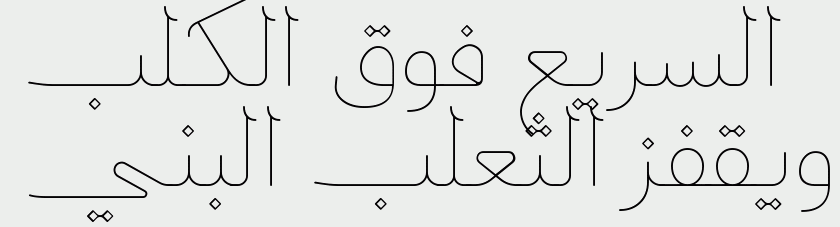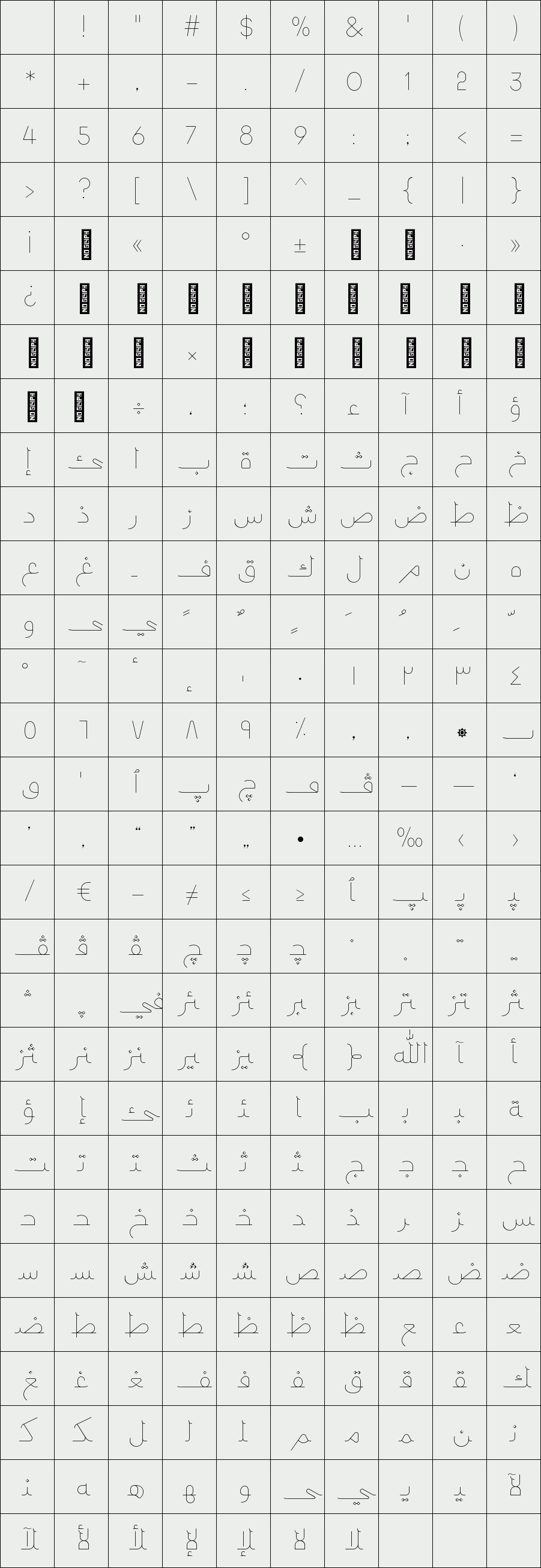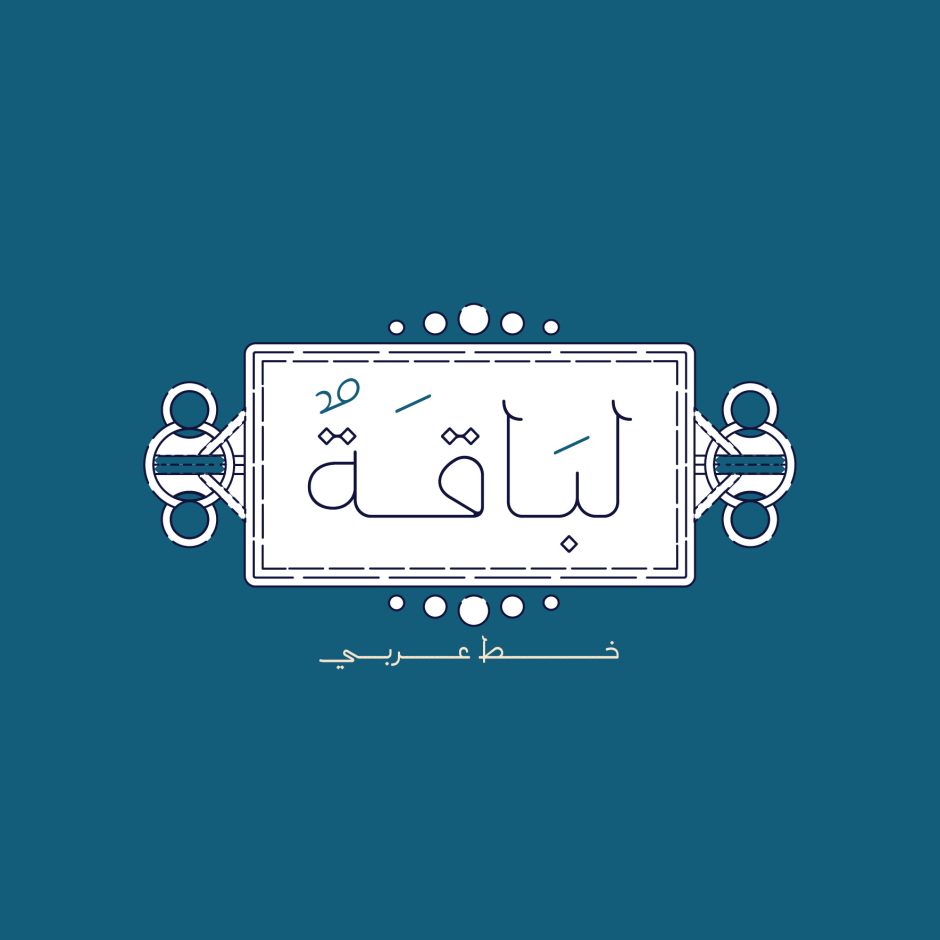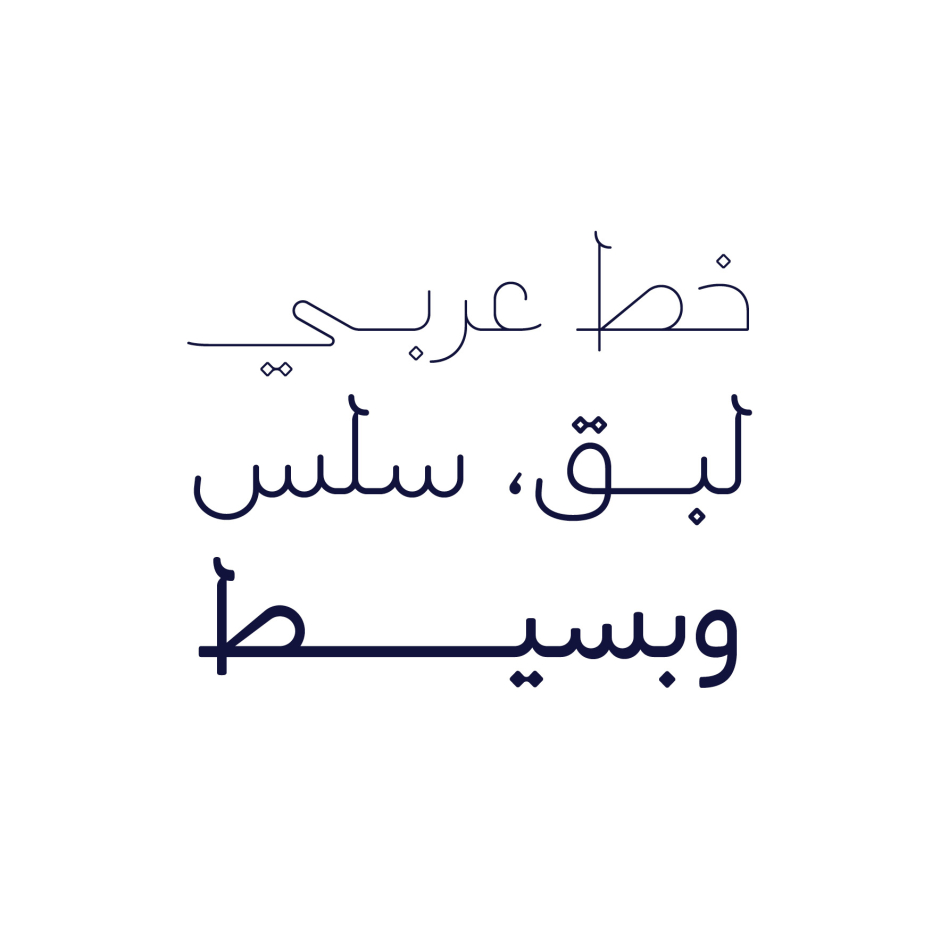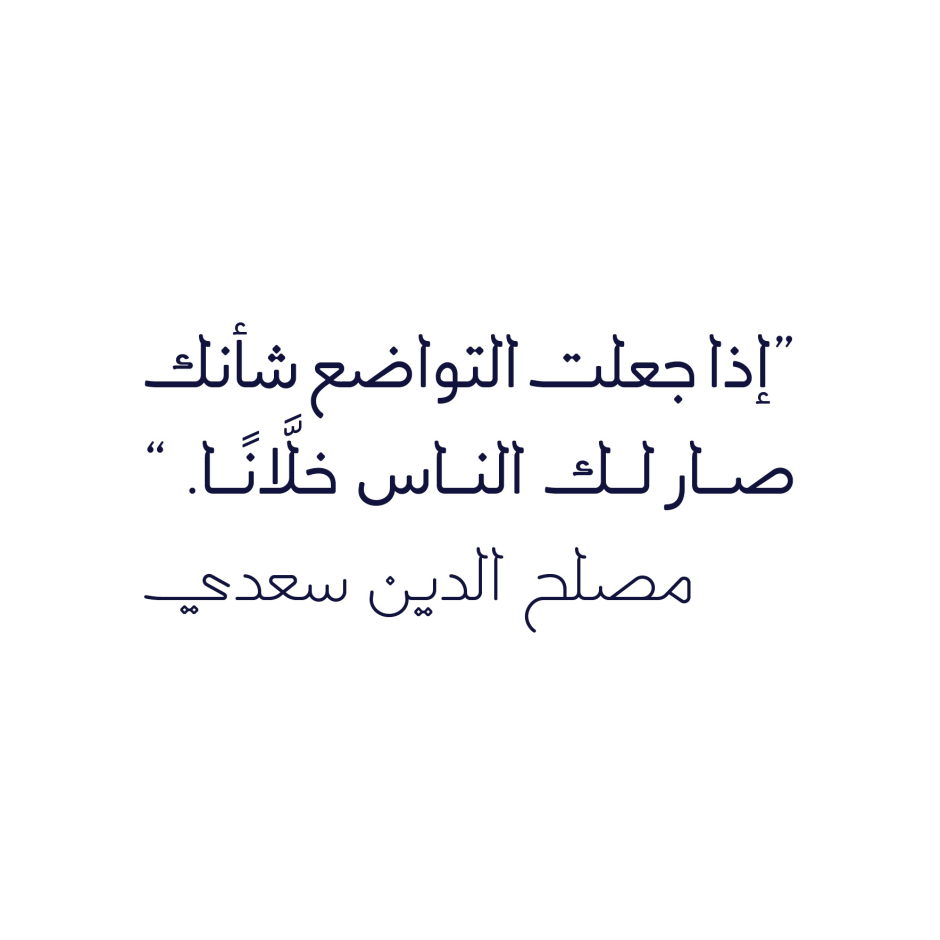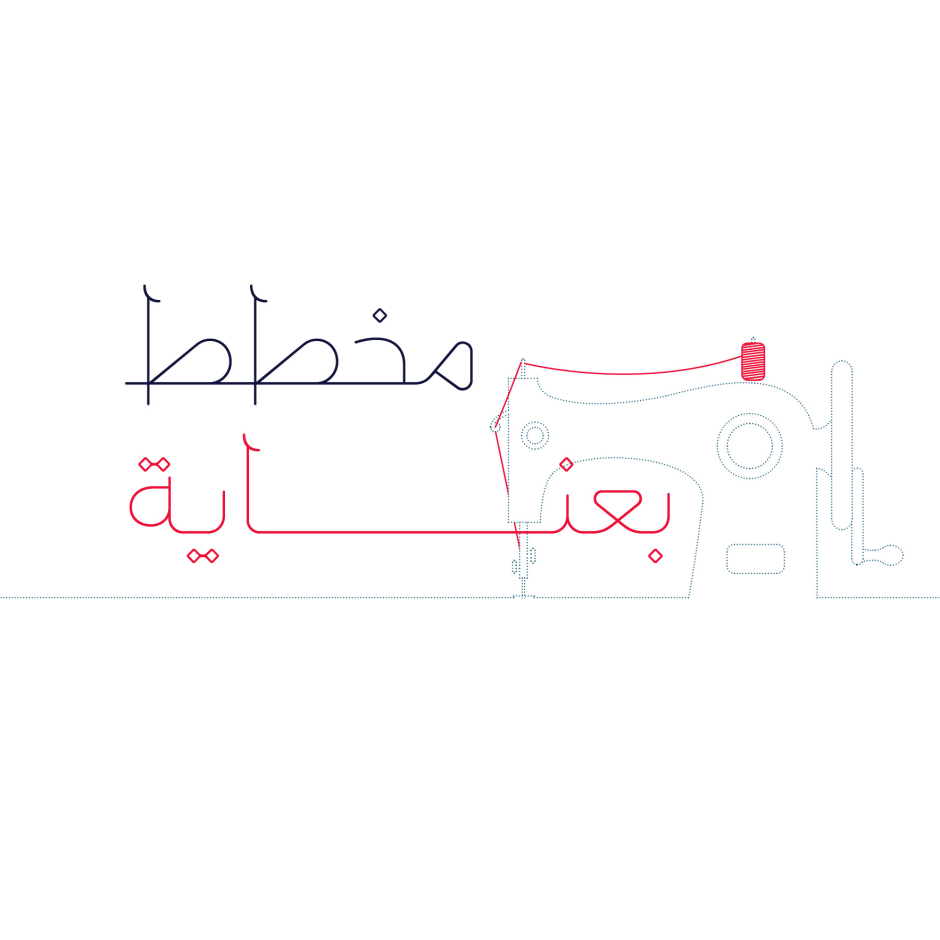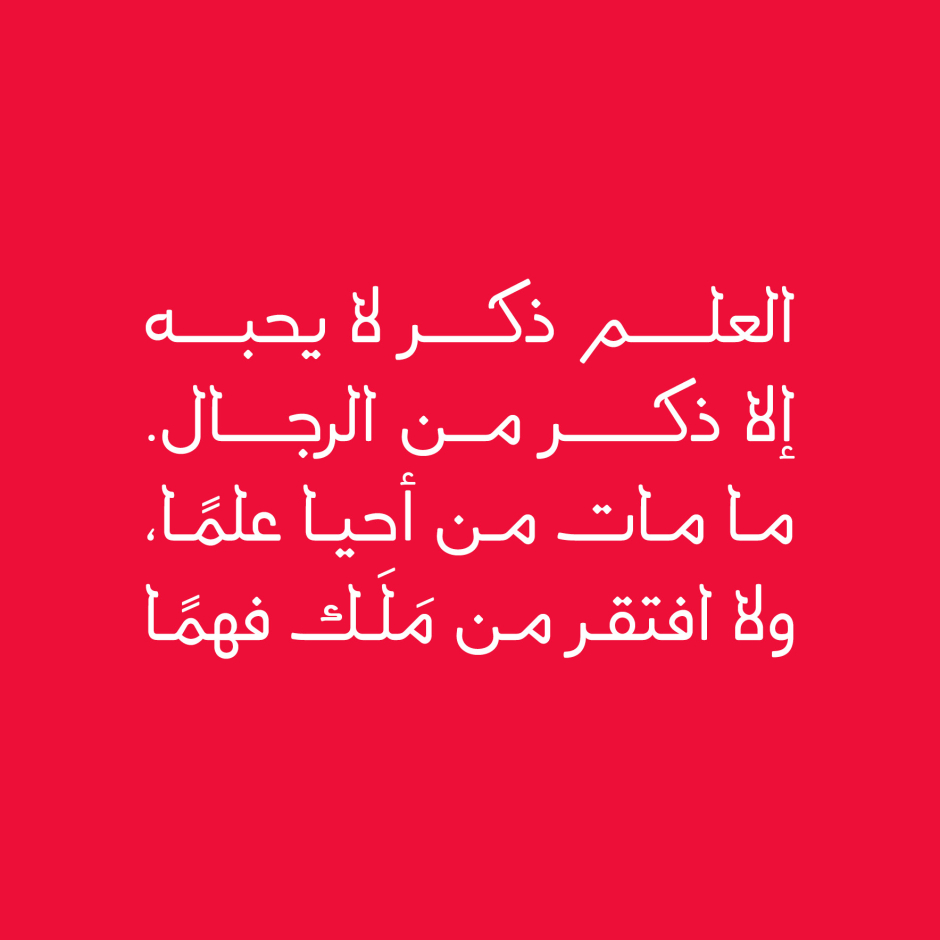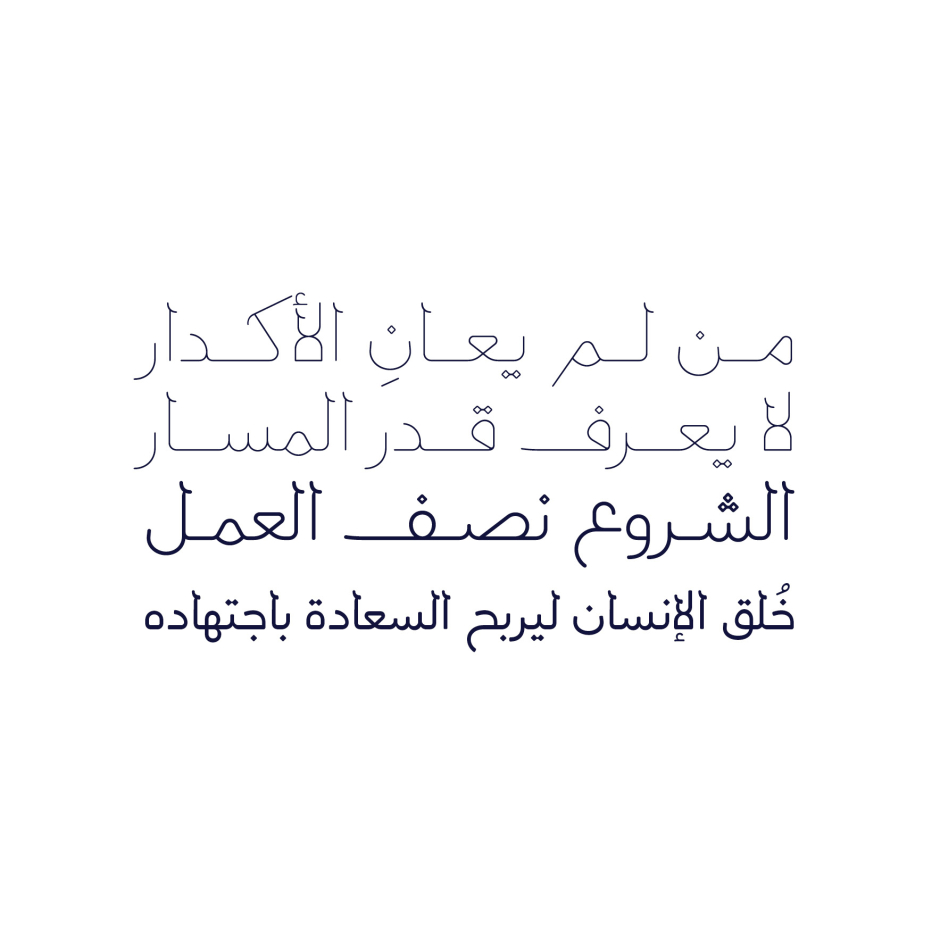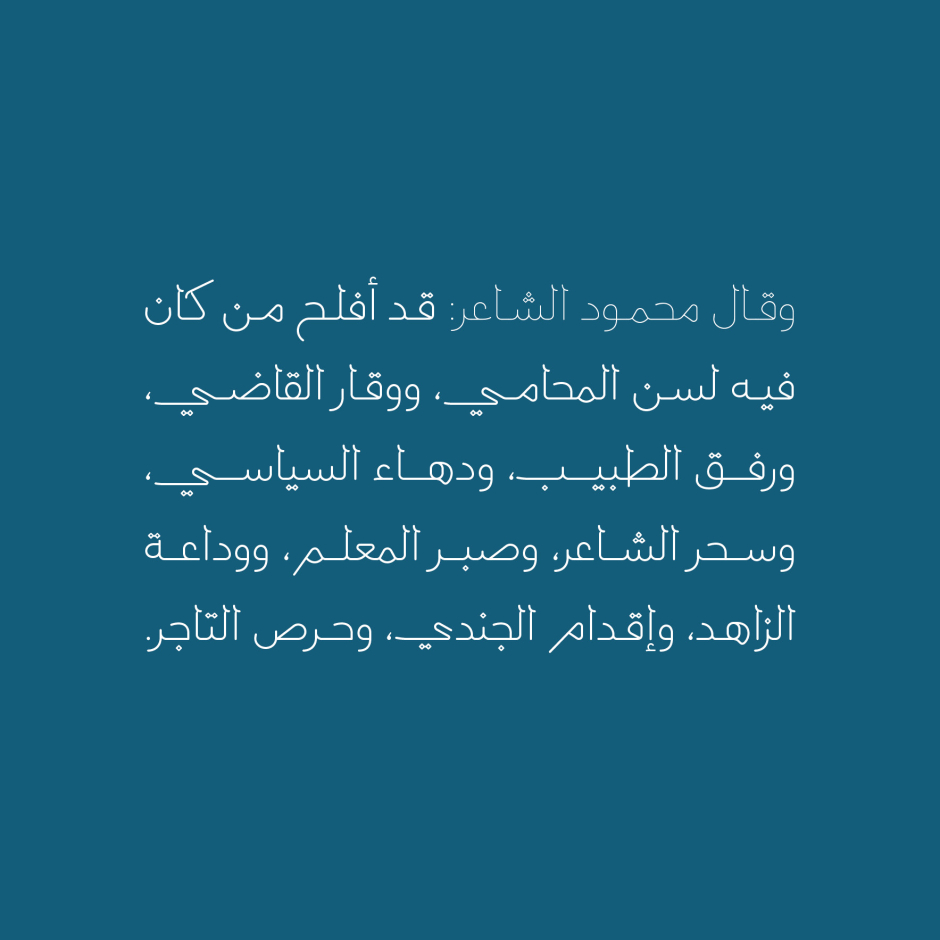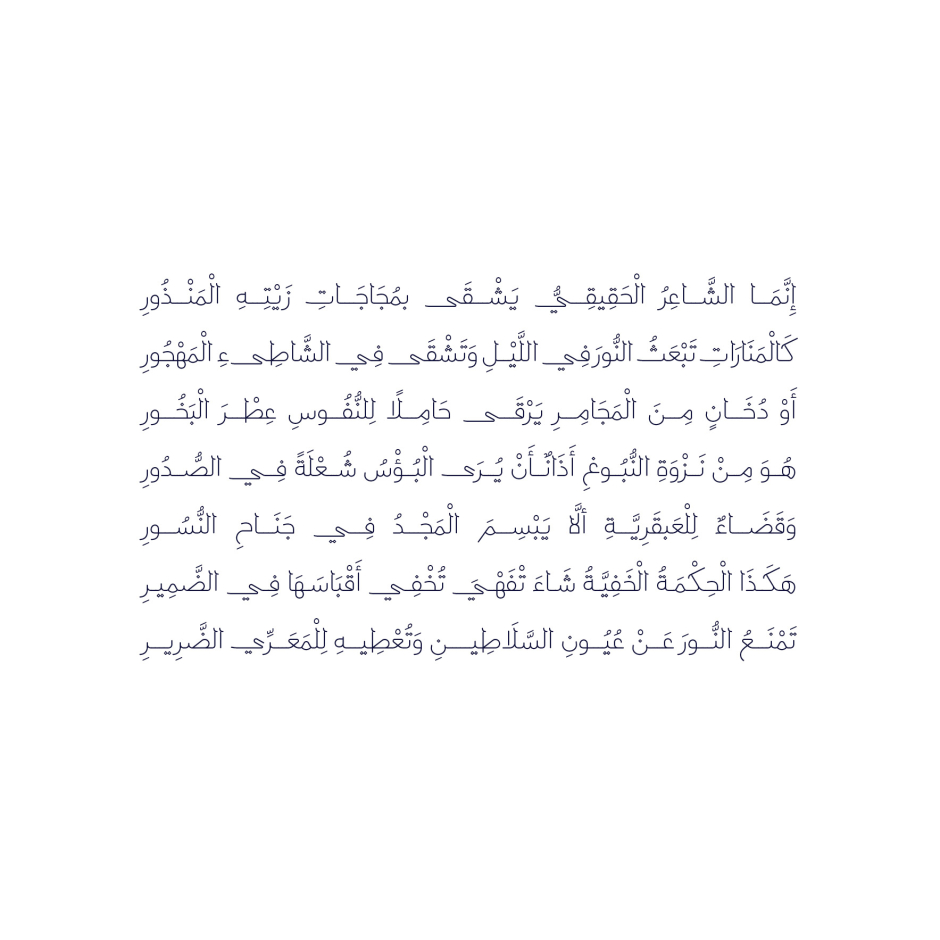
Labaqah
Labaqah (which is the Arabic word for tactfulness) is an Arabic typeface that blends the traditional Naskh style with a simple handwriting flavour. The typeface features three weights (Light, Regular and Bold) and it is suitable for web, print and mobile applications.